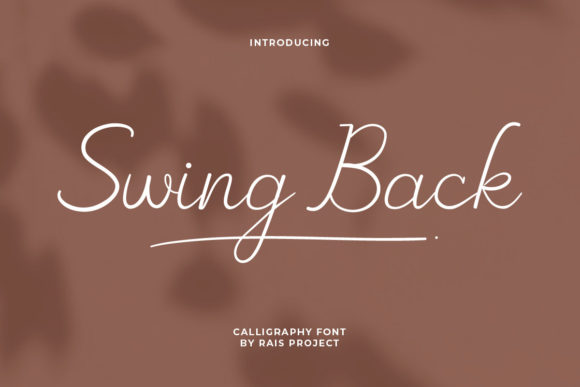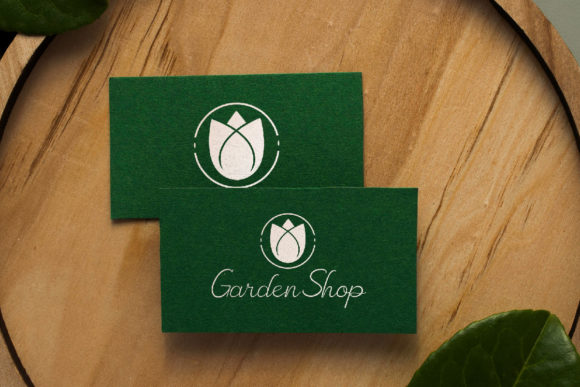
About Swing Back Font
Swing Back is a delicate and well-balanced script font that exudes elegance and sophistication. Its thin letterforms and graceful curves give it a refined and stylish look, making it a perfect choice for projects that require a touch of beauty and sophistication.
The font’s PUA encoding allows you to access all of its glyphs and swashes effortlessly, giving you the freedom to explore and utilize the various stylistic options available. This versatility allows you to create unique and eye-catching designs that stand out from the crowd.
Whether you’re designing wedding invitations, branding materials, packaging, or any other creative project, Swing Back adds a refreshing and beautiful touch to your designs. Its delicate strokes and precise letterforms create a harmonious and visually pleasing composition.
Swing Back’s well-balanced nature ensures that it is legible and readable, even at smaller sizes. This makes it suitable for a wide range of applications, including logos, headlines, quotes, and more.
With Swing Back, you can bring a sense of sophistication and refinement to your designs. Its delicate and refreshing look will captivate your audience and leave a lasting impression.
So, whether you’re aiming for an elegant and modern aesthetic or a more whimsical and feminine design, Swing Back is a font that will elevate your projects and add a touch of beauty and refreshing look to your designs.